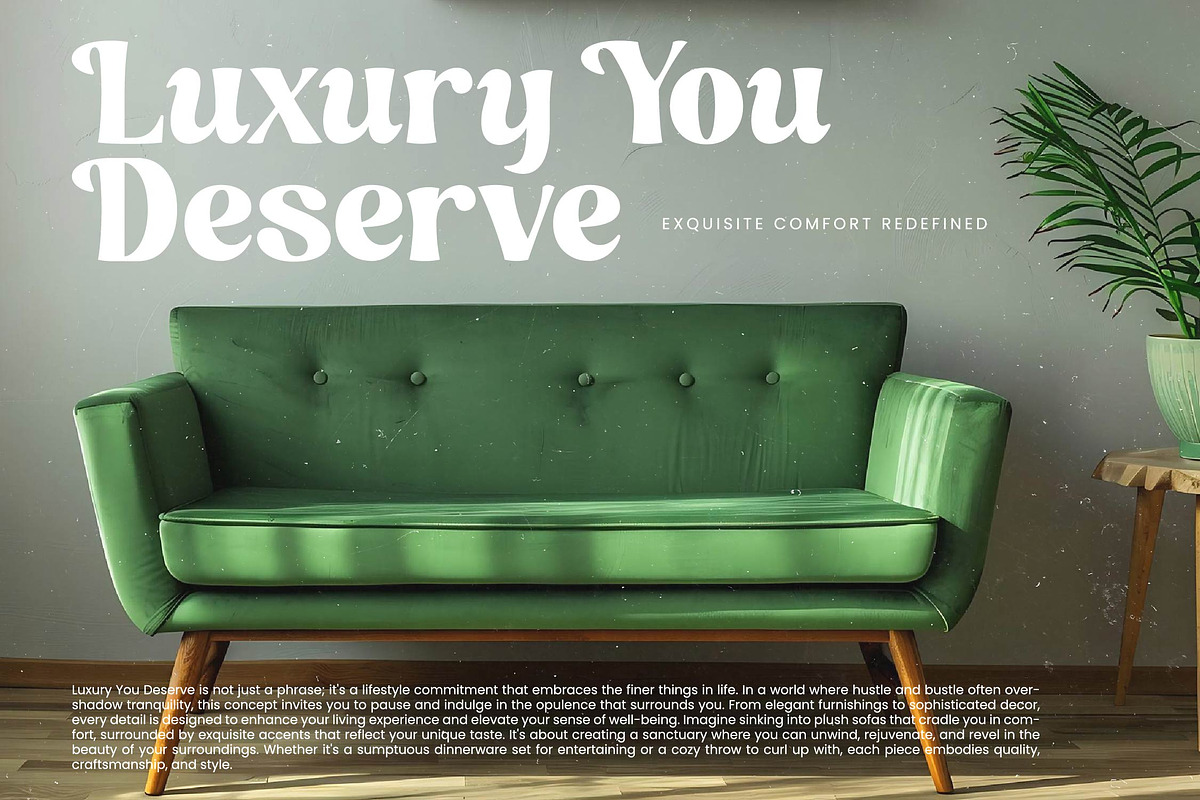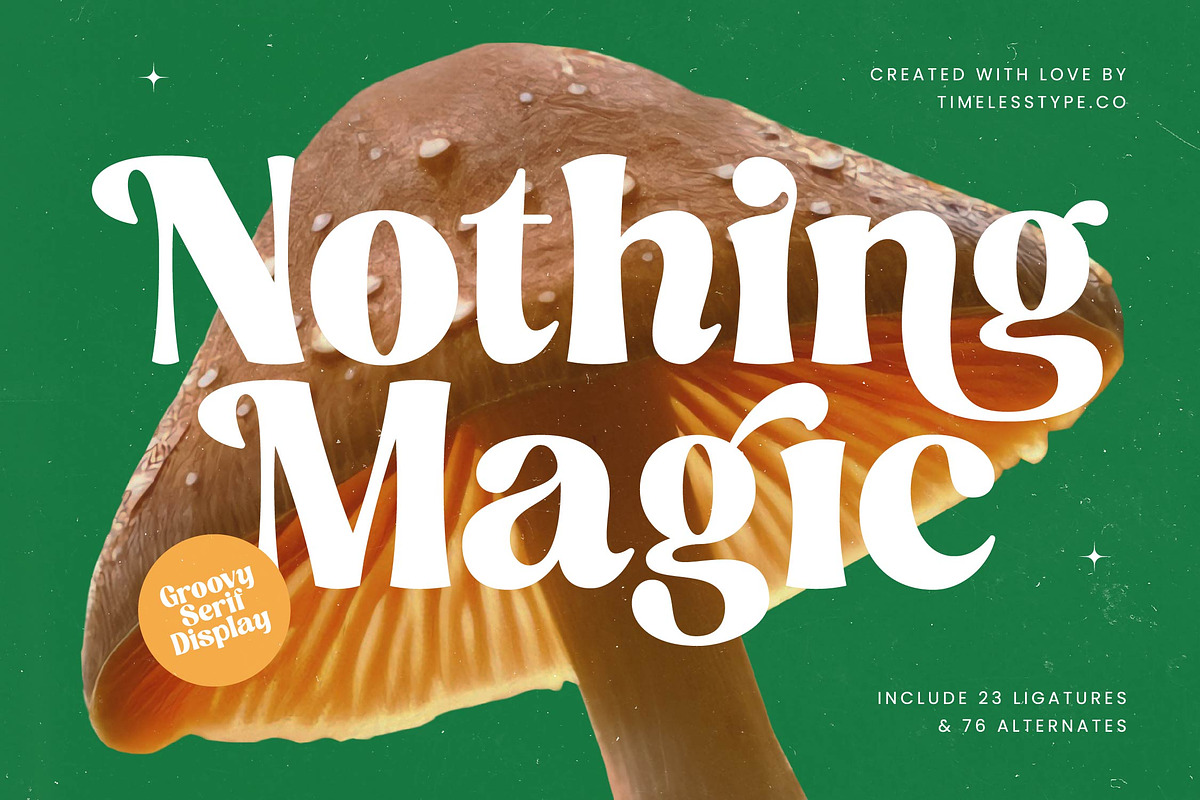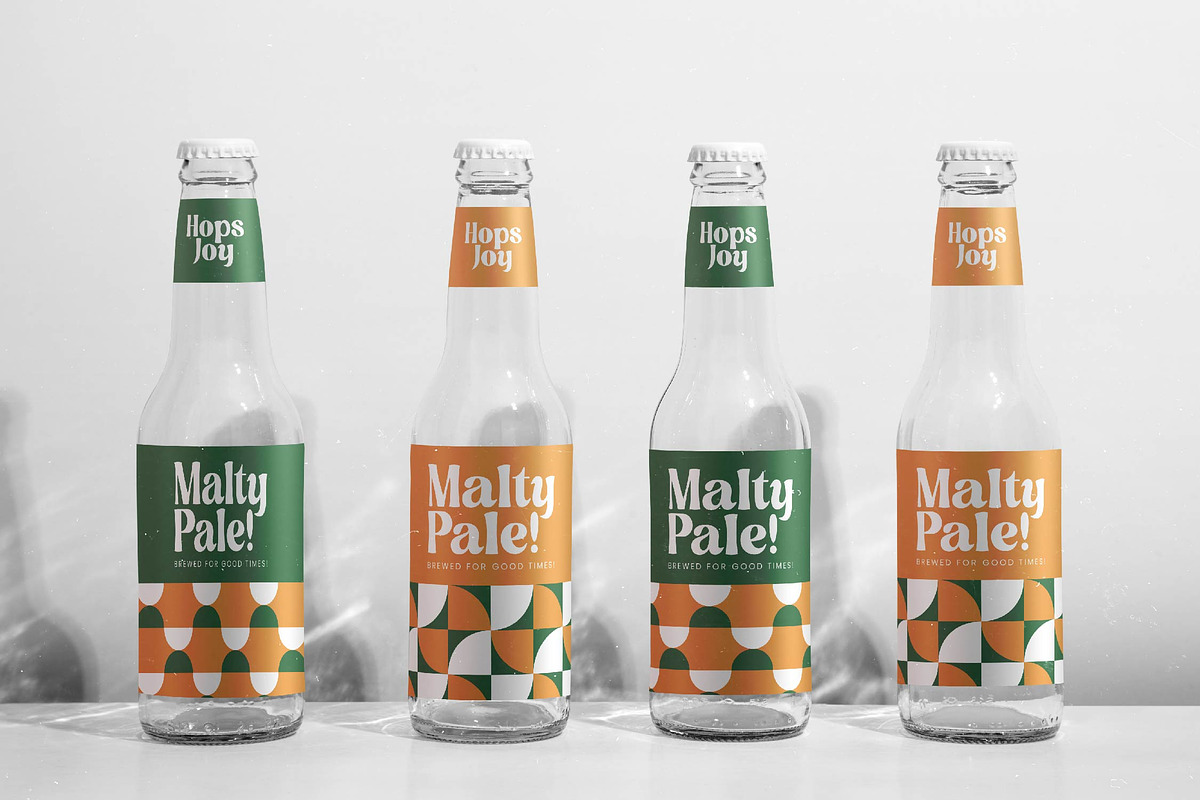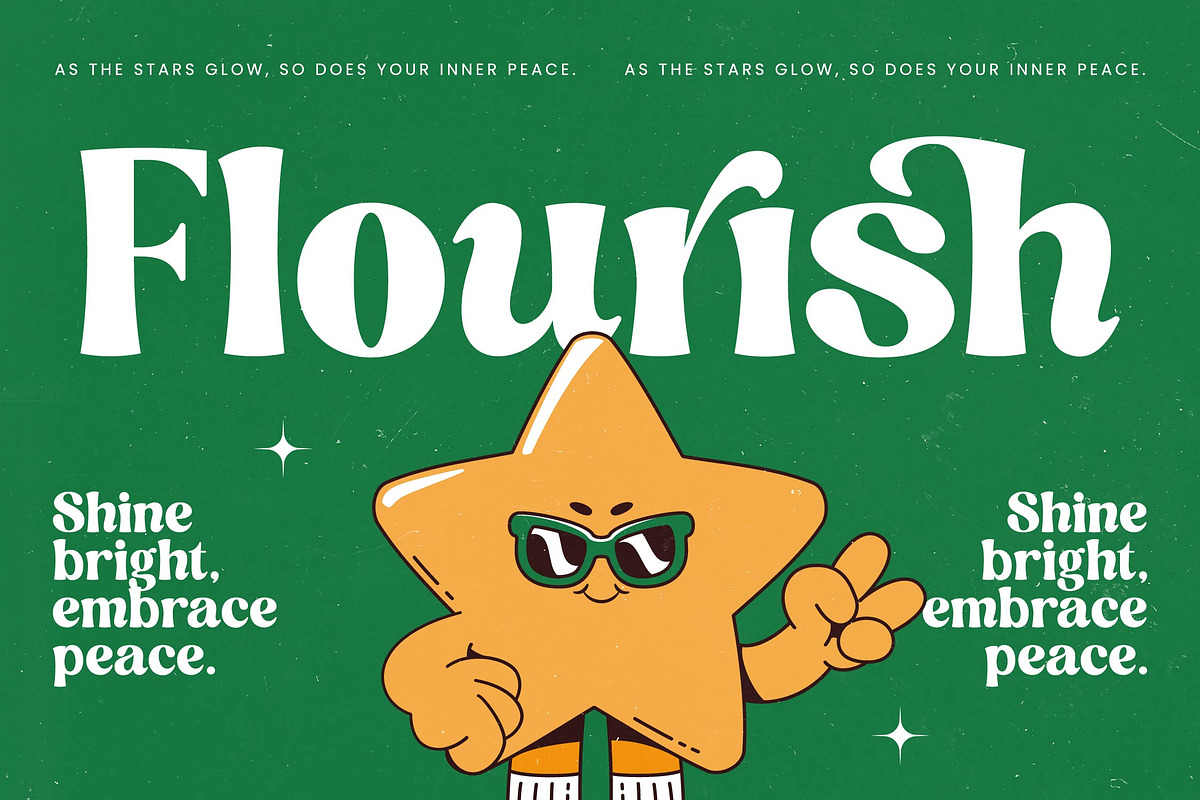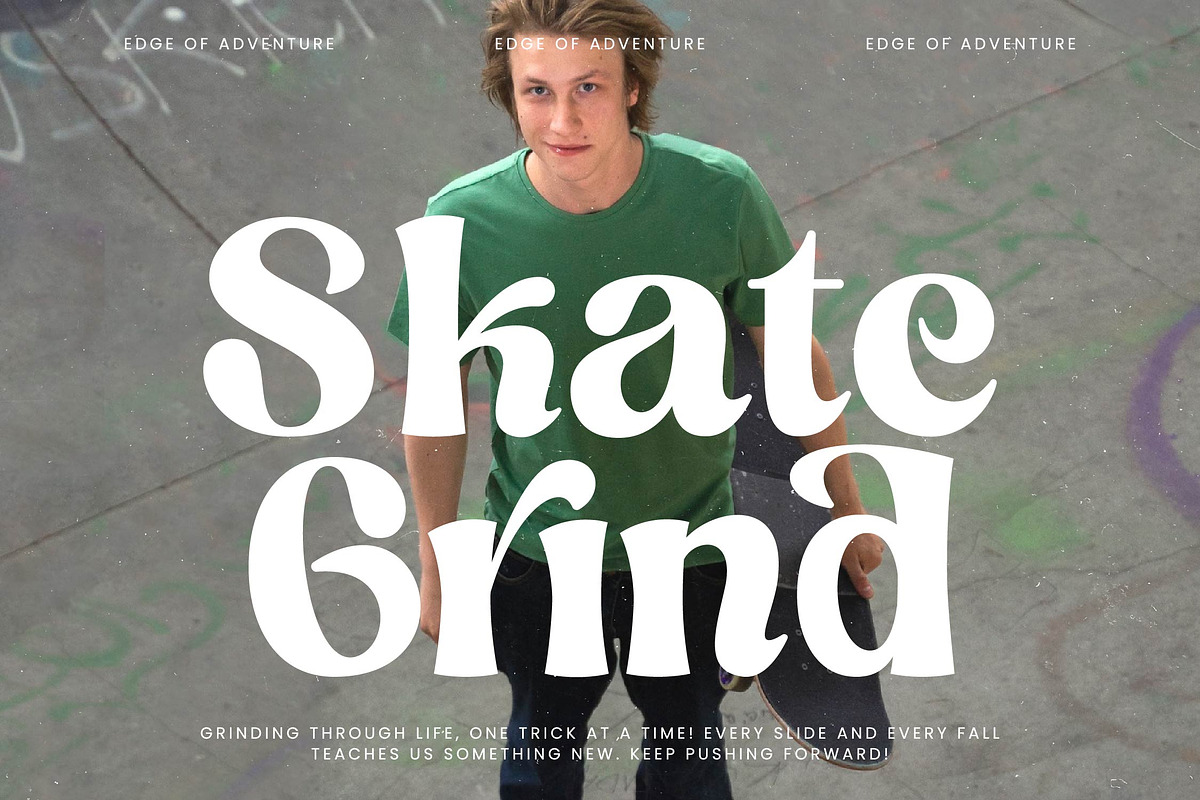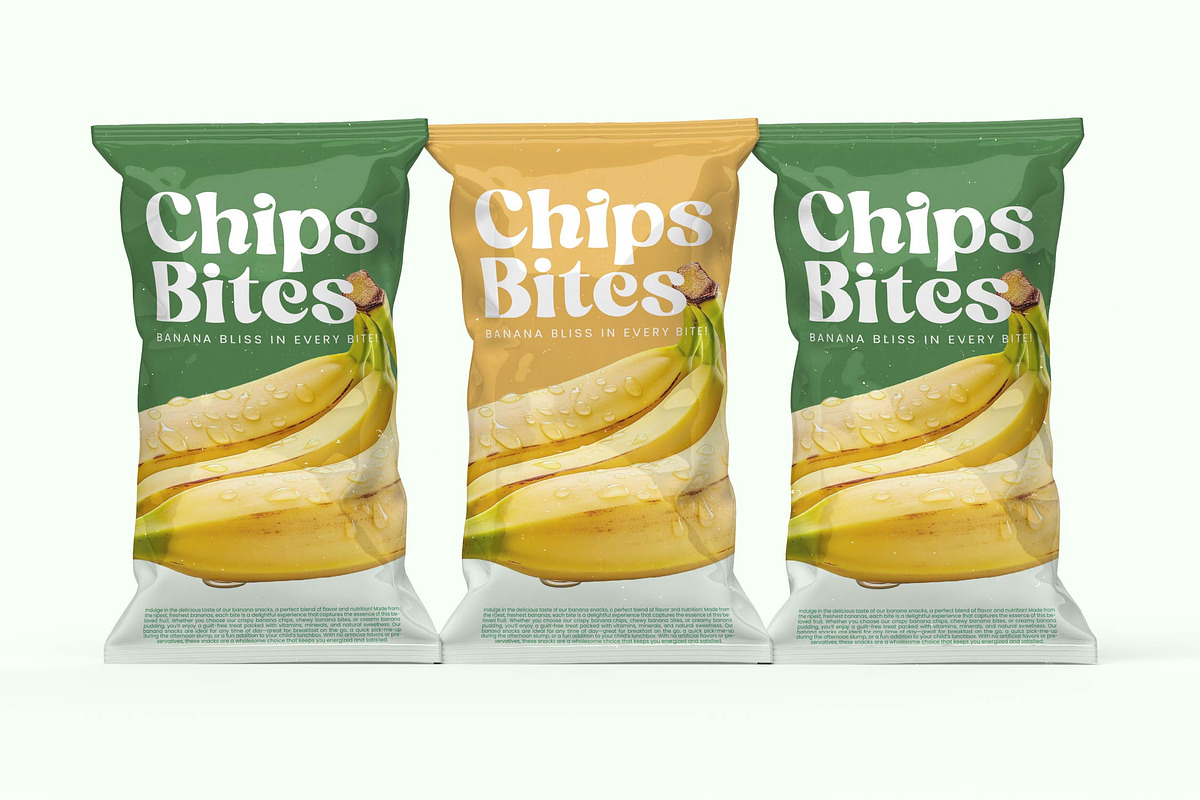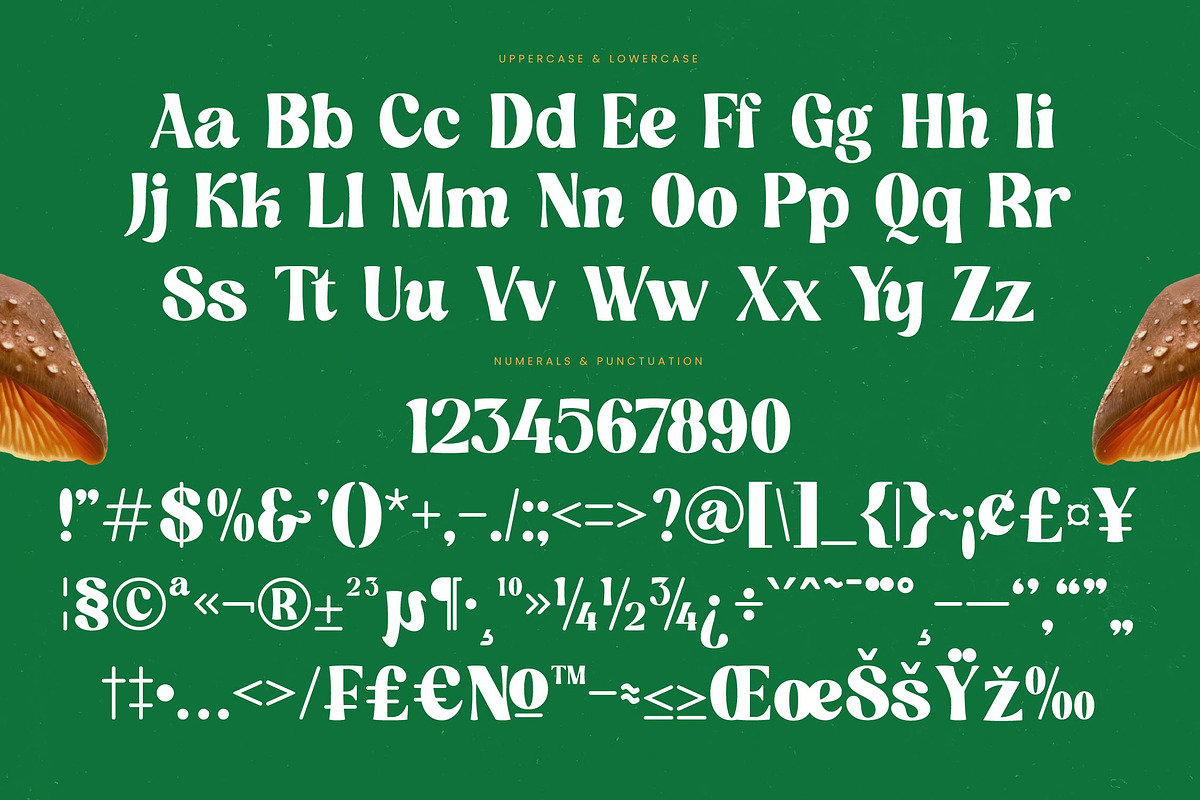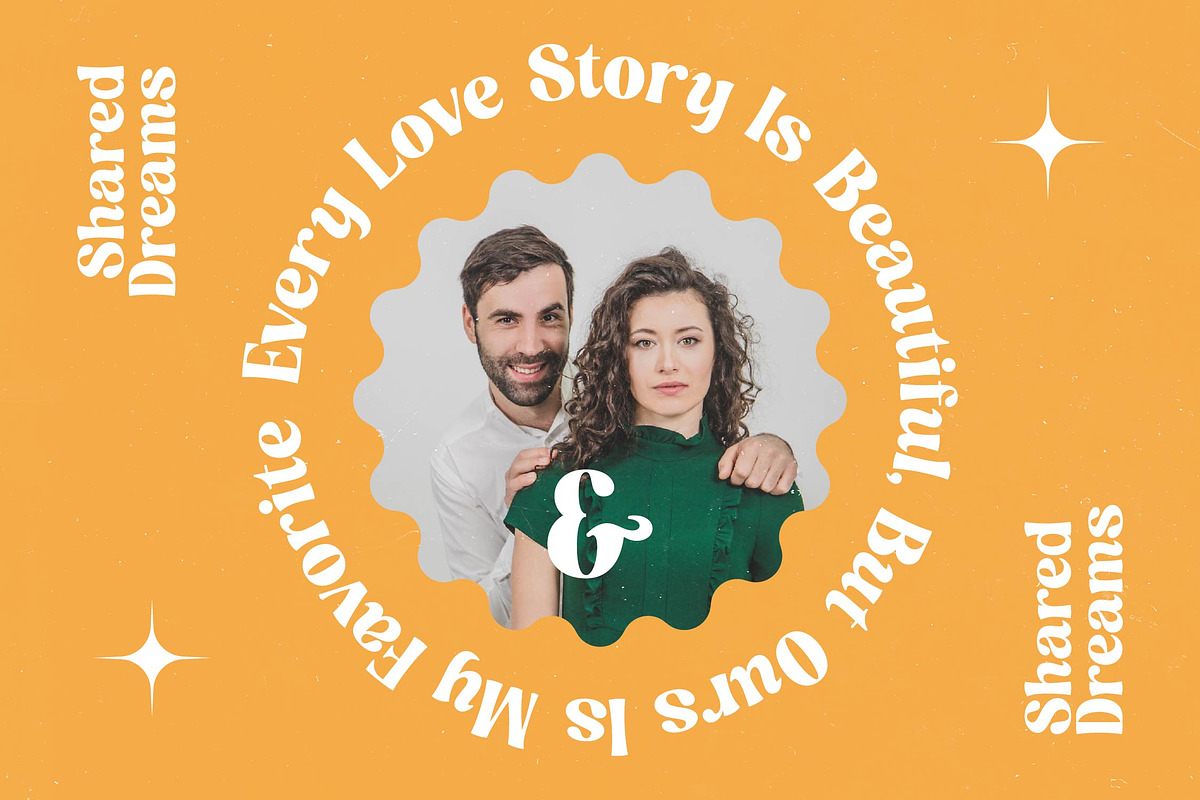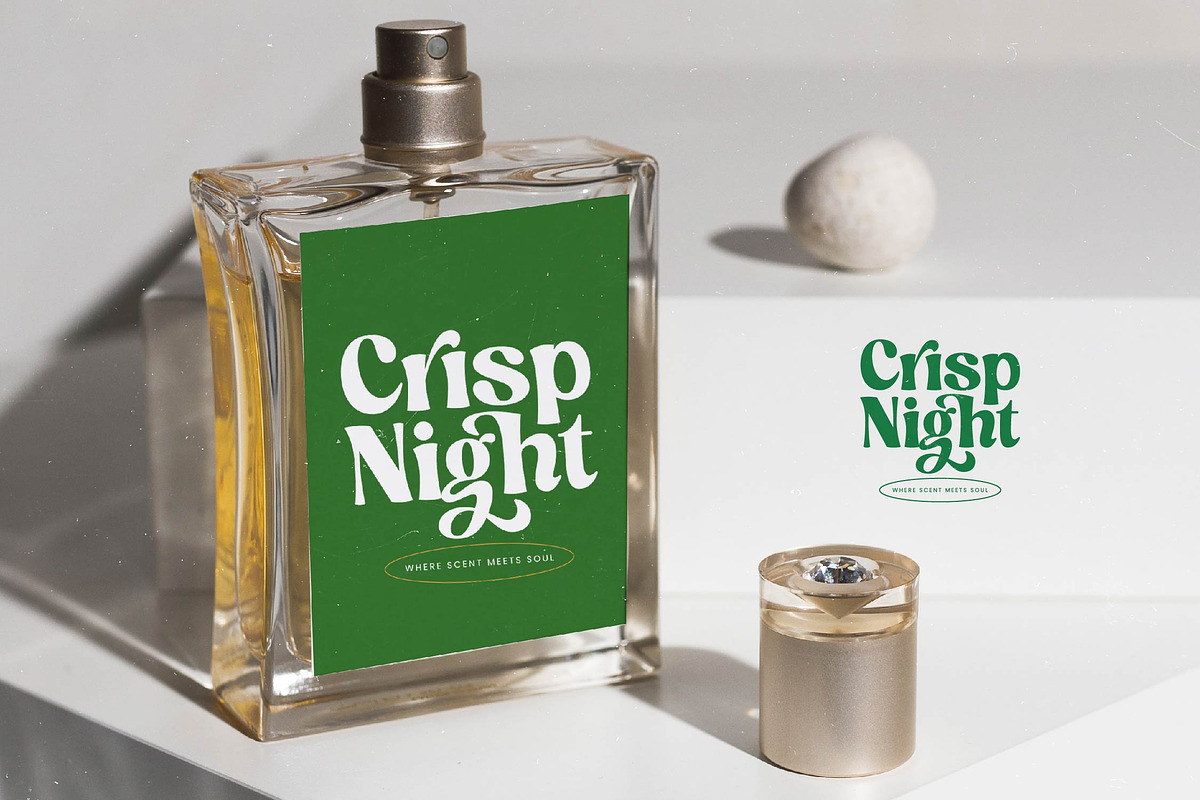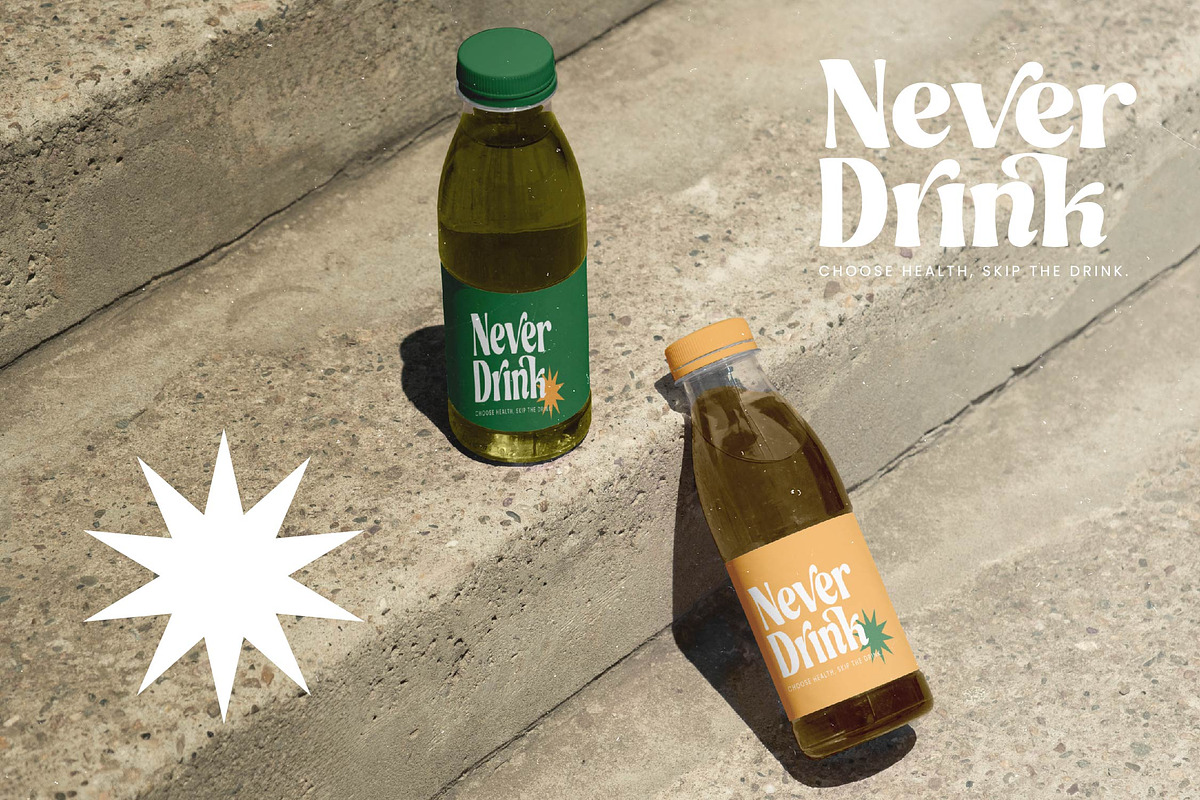
Nothing Magic Retro Groovy Serif
Embrace the whimsical charm of Nothing Magic, a typeface designed to cast a spell on your audience through its captivating curves and bold presence. This font bridges the gap between nostalgic retro aesthetics and contemporary flair, making every word feel like a deliberate piece of art.
Inspired by the trippy, organic shapes of the 1970s psychedelic movement and natural forms, Nothing Magic captures a sense of wonder. Its visual language draws from vintage posters and mushroom-themed illustrations, evoking a dreamy yet grounded atmosphere that resonates with creative souls.
This modern serif display is more than just a set of letters; it is a tool for luxury typography that demands attention. With its high-contrast serif design, it provides an undeniable branding impact, making it an ideal editorial font for those who want their message to stand out with personality and sophistication.
Riding the wave of the current modern serif trend, this typeface aligns perfectly with the shift toward character-driven typography. Designers seeking editorial display fonts will find that its unique silhouettes and flowing lines meet the demands of today’s high-fashion and lifestyle markets.
Whether you are working on a high-end logo design or a complete branding identity, Nothing Magic delivers a versatile solution. It excels in editorial layouts, vintage-inspired packaging, romantic wedding stationery, and bold fashion lookbooks where every character counts.
To ensure maximum creativity, this font includes a robust set of 23 ligatures and 76 alternates, including stylish swashes, allowing for endless customization. It also features multilingual support and a wide range of international characters, providing the flexibility needed for global design projects.